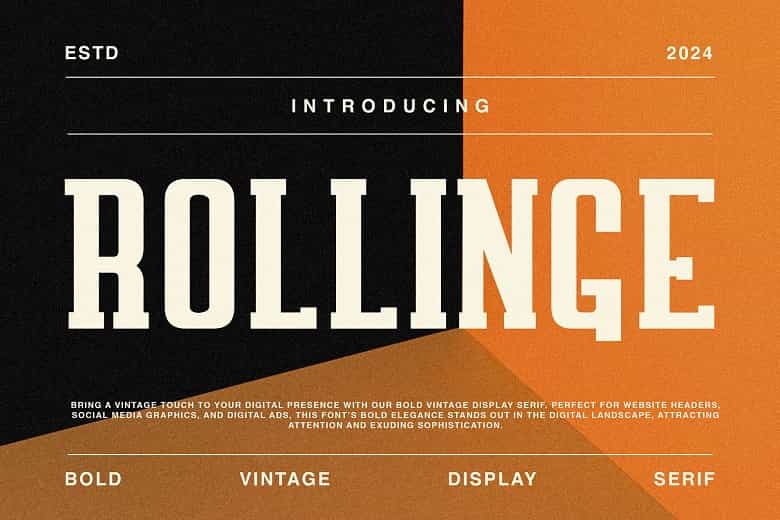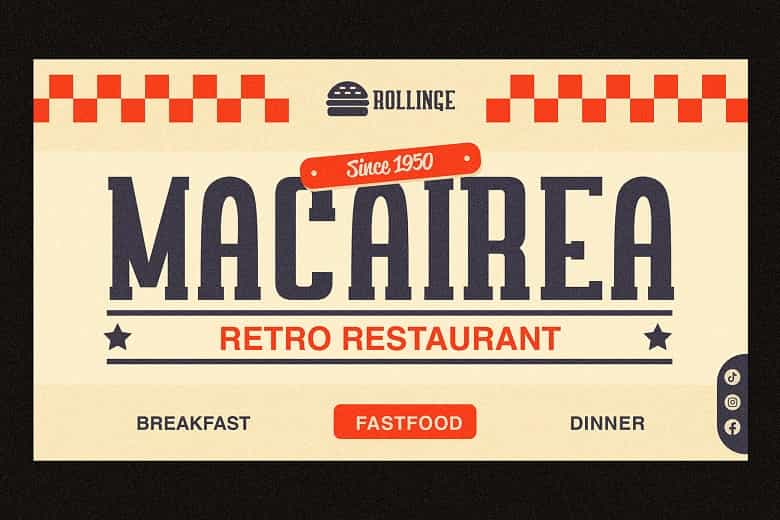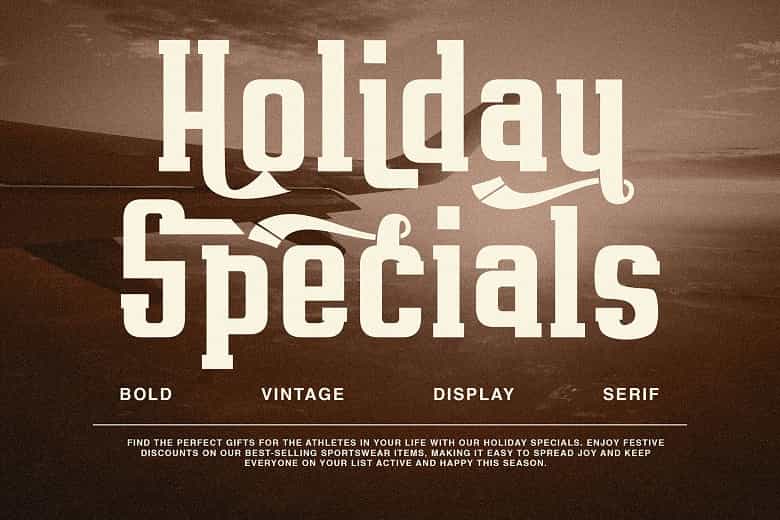
Rollinge is a geometrical slab serif font with a very clean look and style and the best part is it has a lot of stylistic alternatives so as to give your designs the desired look. This is highly customizable and can be used for logos, branding, posters, clothing designs, magazine titles, labels, etc.